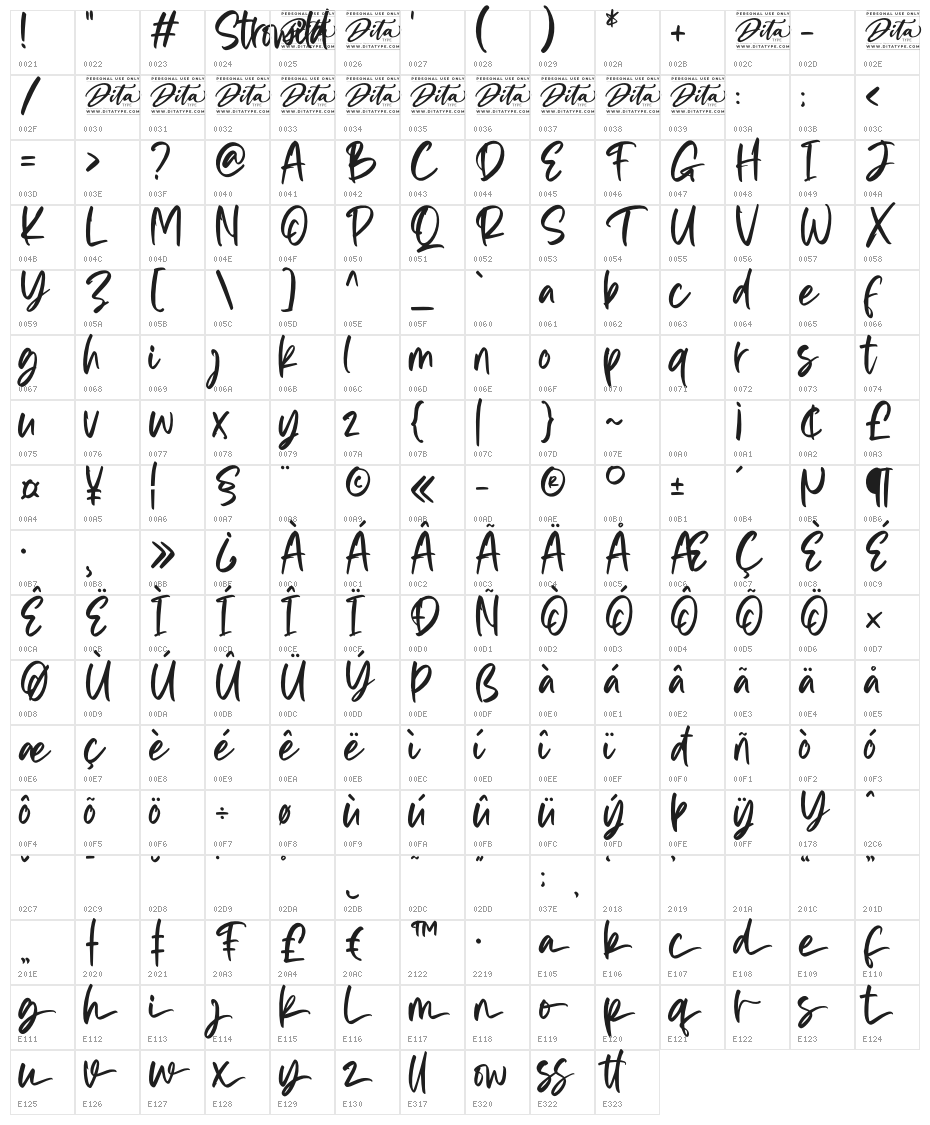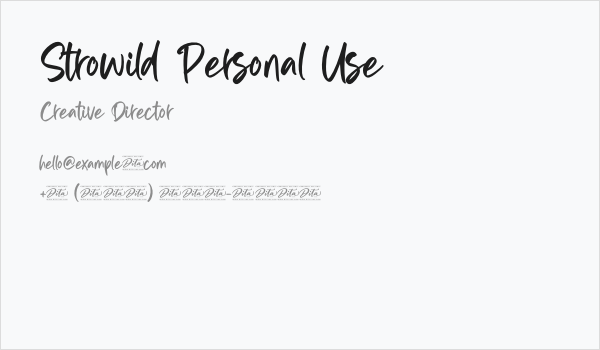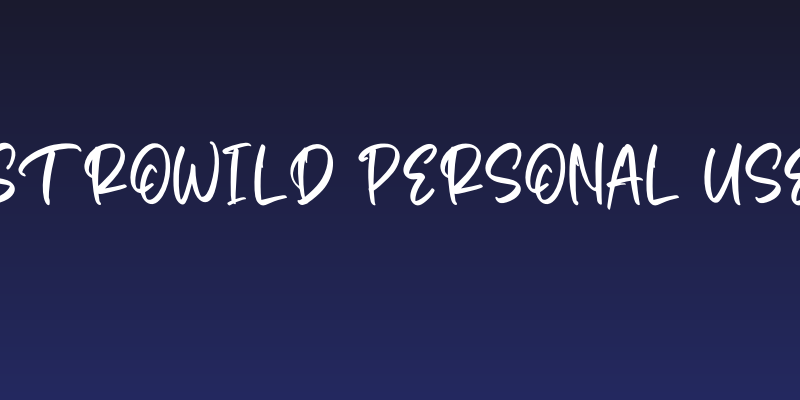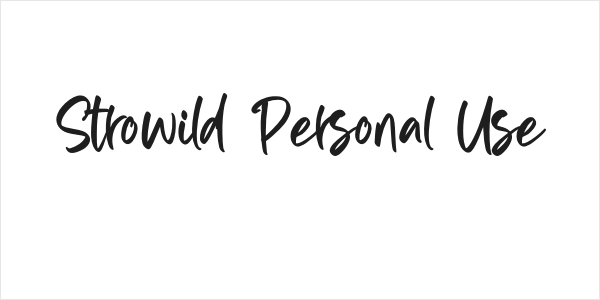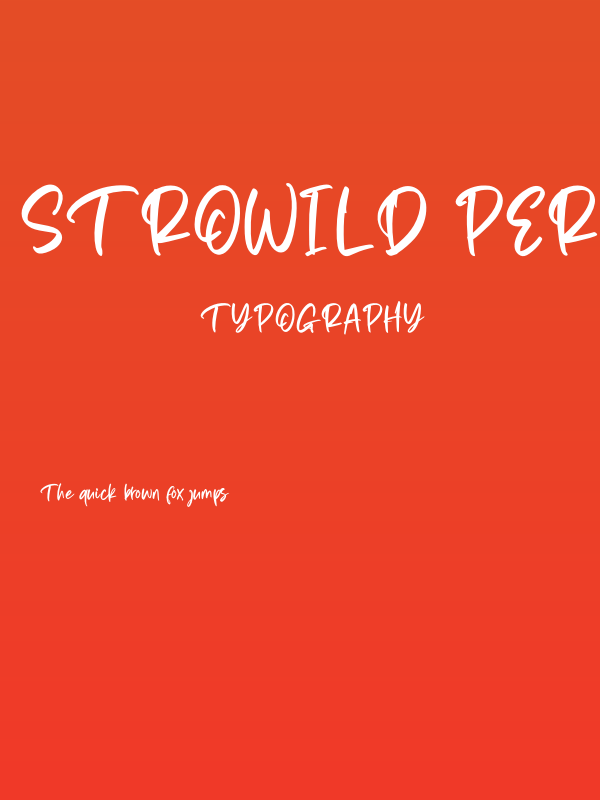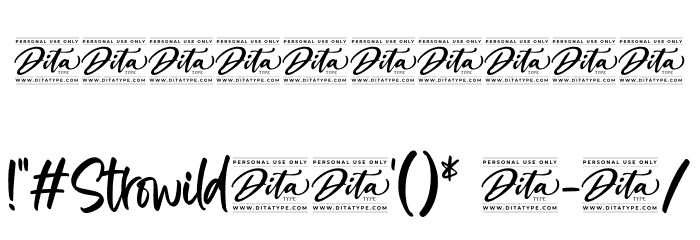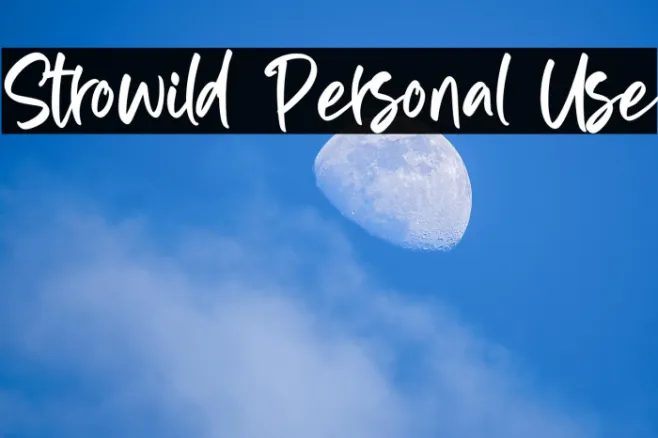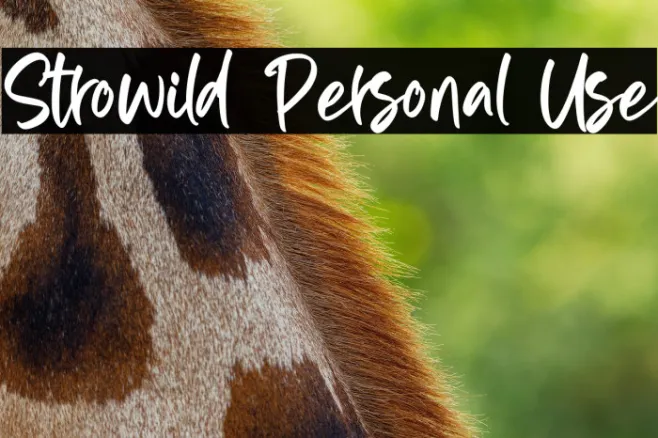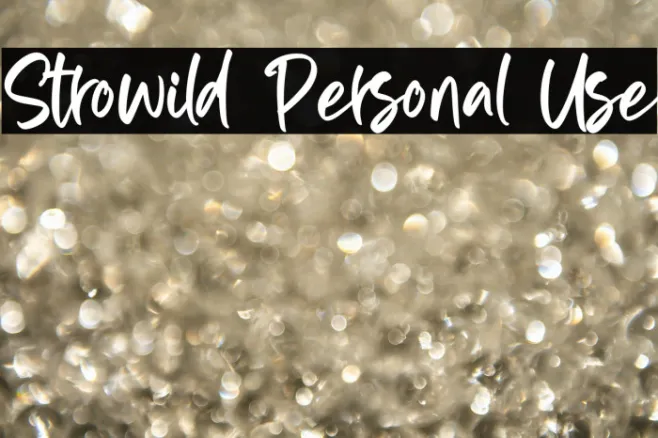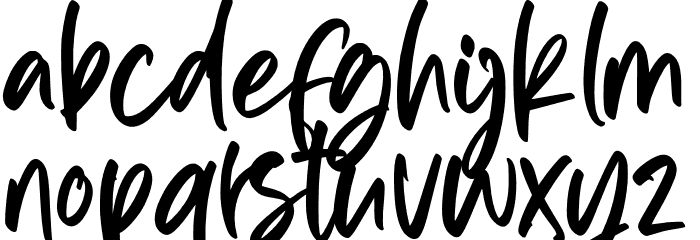
Strowild Personal Use Font
Strowild Personal Use Description
This font features a bold and expressive handwritten style, characterized by its fluid and dynamic strokes. The letters have a playful and energetic appearance, with varying thickness that adds a sense of movement and personality. The uppercase and lowercase letters maintain a consistent style, with slightly exaggerated curves and loops that enhance its casual and artistic feel. The numbers and special characters follow the same design principles, ensuring a cohesive look across all elements. This font is ideal for projects that require a personal touch or a creative flair.
| Use Case | Logos, Headlines, Creative projects |
| Proposed Projects | Ideal for greeting cards, invitations, branding, social media graphics, and creative projects requiring a personal touch. |